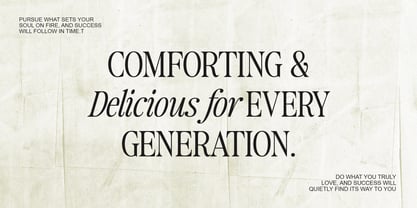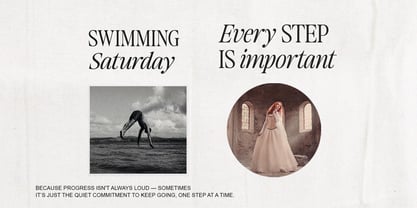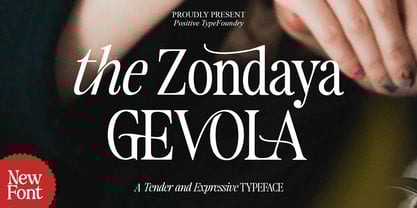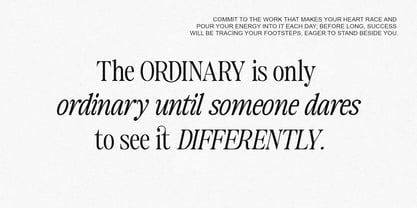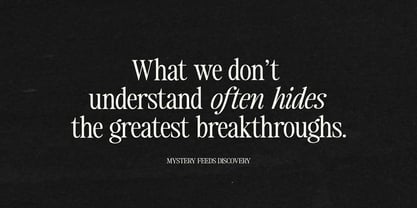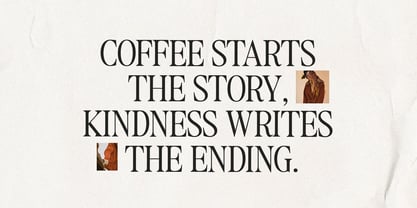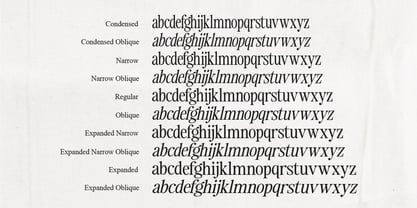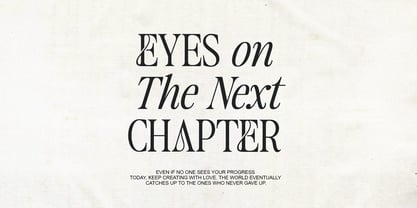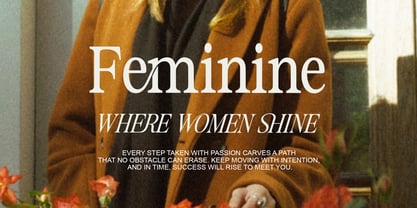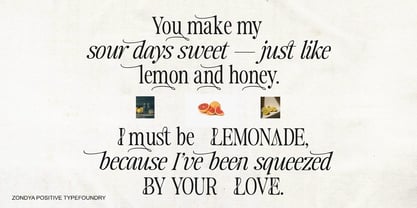
The Zondaya Gevola
by Positive Type
The The Zondaya Gevola Font Family was designed by Nur Hayati and published by Positive Type. The Zondaya Gevola contains 30 styles and family package options. More about this family
Introducing Zondaya Gevola – a soft and expressive serif typeface from Positive TypeFoundry.
Zondaya Gevola blends classic elegance with a contemporary twist. With graceful serifs, artistic strokes, and sophisticated letterforms, Zondaya Gevola delivers a strong and captivating visual presence. Ideal for branding, editorial layouts, product packaging, and any design project that requires a bold and romantic touch.
Designed with great attention to detail, this typeface works best at large sizes, especially for headlines and other display elements—giving character and emotion to any design.
Key features:
Stylish decorative serifs
Elegant swashes and alternate letterforms
Suitable for logos, magazines, invitations, and more
Feminine, graceful, and expressive character
Let Zondaya Gevola voice the visual identity of your creative project with its distinctive and captivating style.